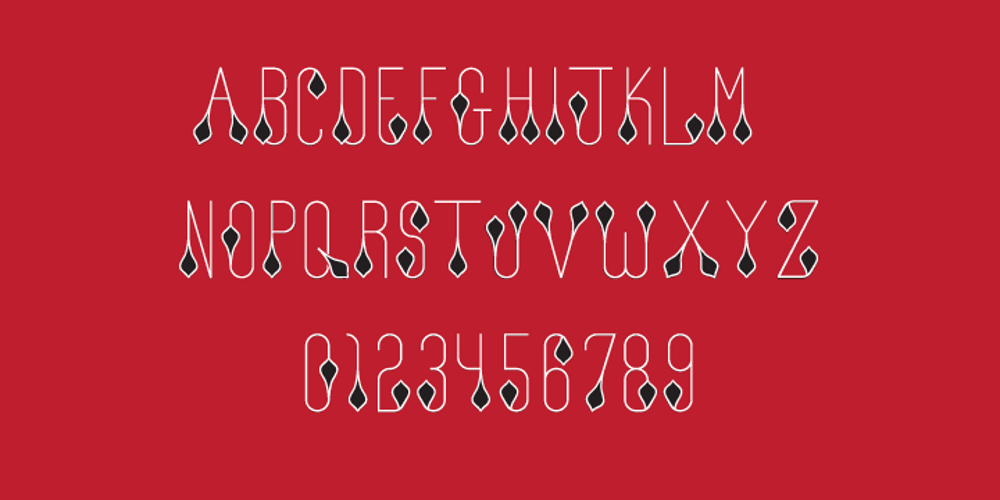
Giglio Rosso Font Family was designed by Aisha Scott and published by Reel Hood. Giglio Rosso contains 2 styles and family package options. Giglio Rosso is a decorative typeface with a floral design. The font is named giglio rosso, “red lily,” because it is inspired by the symbol of Florence.